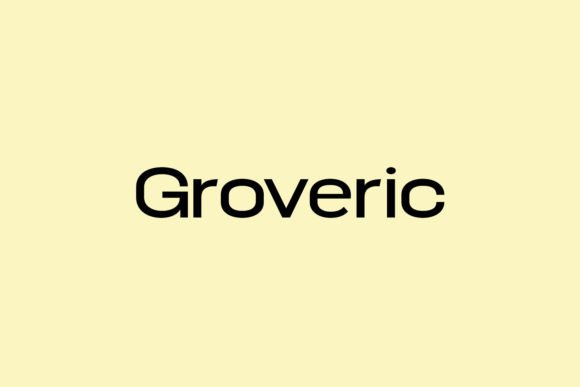
Behold Groveric Font, a stroke of typographic genius from BeeType. This captivating display typeface exudes modernity, marrying clean lines with sharp edges to create a visual spectacle. Prepare to be mesmerized as Groveric transforms your designs into a feast for the eyes.
Unleash your creativity with Groveric, a font that transcends boundaries. Its versatility knows no limits, making it the perfect companion for a myriad of design projects. Craft logos that command attention, design wedding invitations that radiate elegance, create quotes that resonate with power, or craft advertisements that leave an indelible mark. Groveric is the font that brings your visions to life, adding a touch of sophistication to every project.
Groveric isn't just a font; it's an experience, a journey into the realm of visual artistry. Its bold letters dance across the page, captivating your audience with their striking presence. Let Groveric be the centerpiece of your design, the element that elevates your work from ordinary to extraordinary.
Immerse yourself in the world of Groveric, where imagination meets reality. Let your designs flourish with this modern display typeface, a true masterpiece in the world of typography. Discover the endless possibilities that await, and let Groveric guide you towards design excellence.